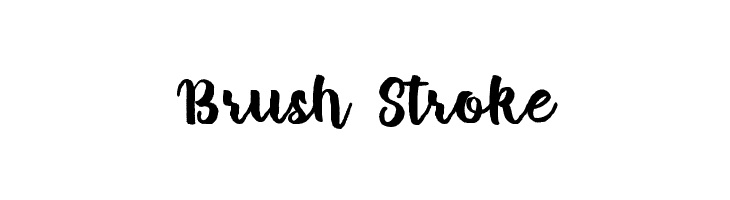
( Atjcloth Studio - Hanif Syahputra - creativemarket.com/Atjcloth?u=Atjcloth )
A bold, brush-stroke style font with dynamic, hand-painted letterforms.